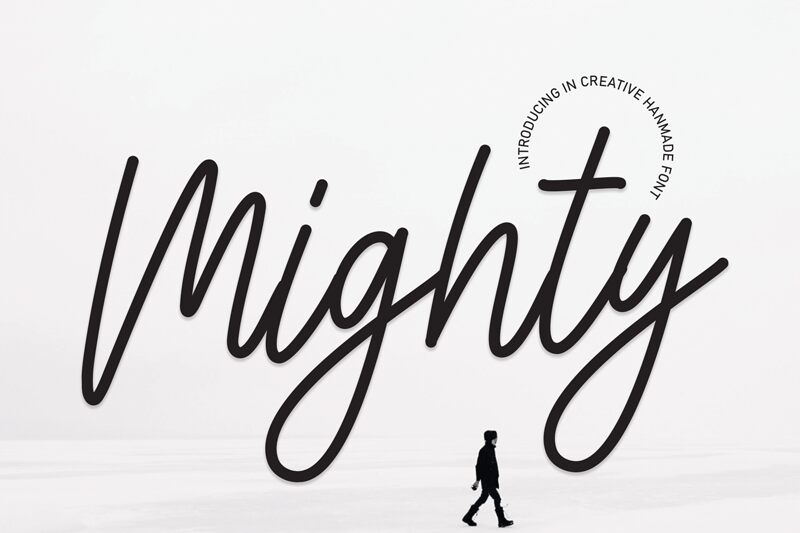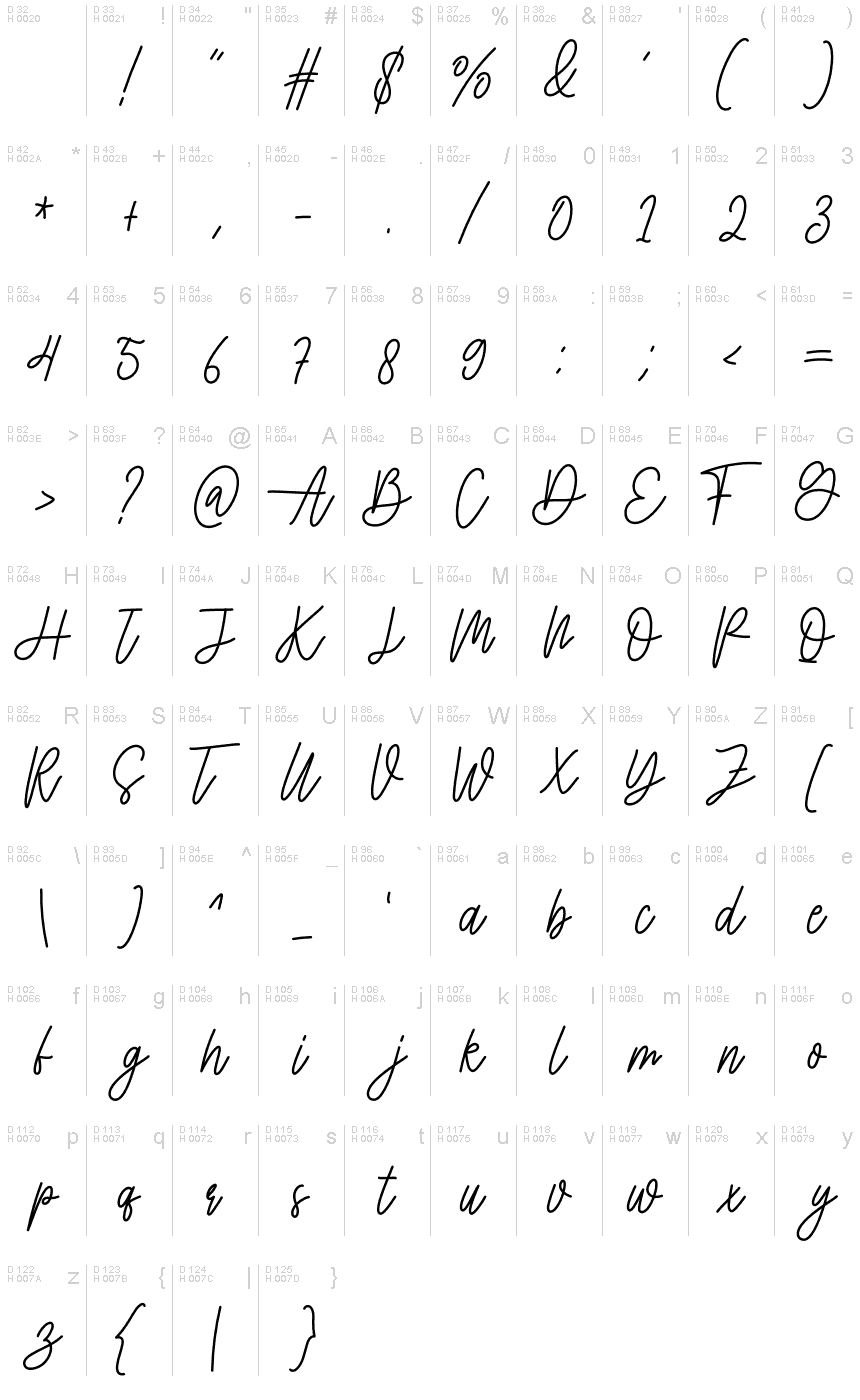
Mighty
Mighty, designed by Scratchones, is an exquisite handwritten font with a light weight and semi-condensed width.
Its elegant and fluid strokes make it perfect for adding a touch of sophistication to wedding invitations, greeting cards, and personal stationery. The Mighty font beautifully captures the essence of handcrafted artistry, making it an excellent choice for branding projects that seek to convey a sense of authenticity and creativity.
Additionally, its legibility and unique charm make it suitable for blog titles, social media graphics, and logo designs in various industries such as fashion, beauty, or lifestyle.